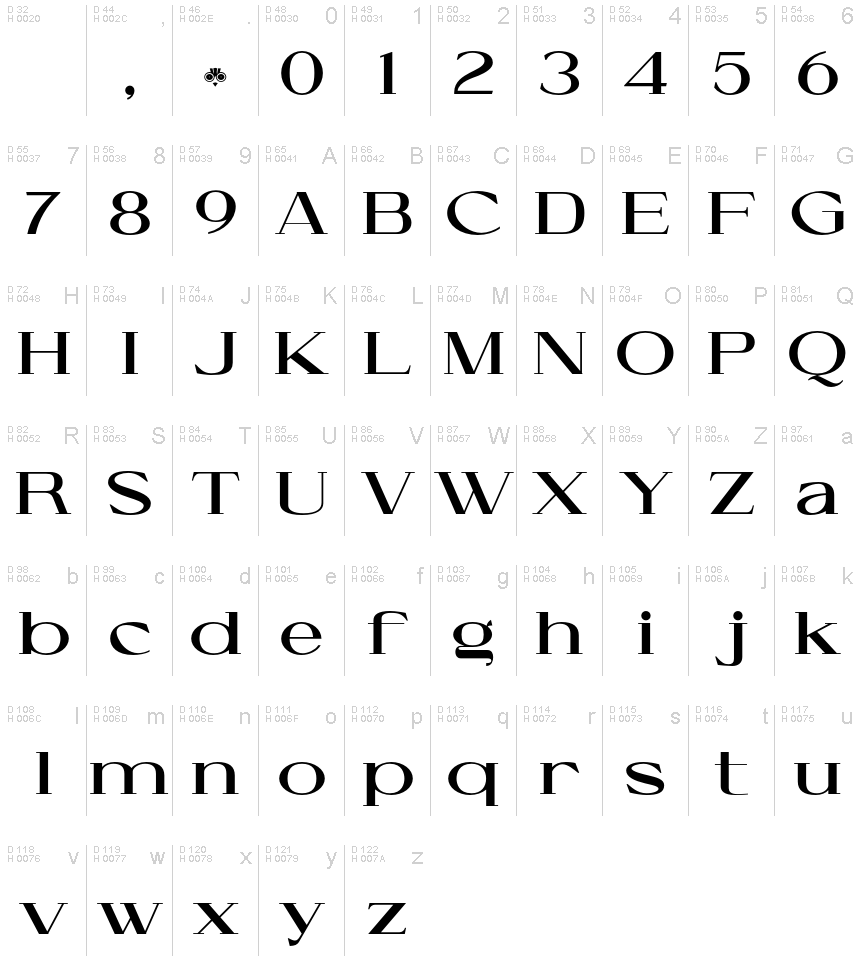
Cellofy Black Expanded font, part of the Cellofy family by Owlking Project, captures attention with its bold, expanded serif style. The font showcases a strong visual impact, making it perfect for headlines and branding where a commanding presence is essential. Its expanded width enhances readability and adds a touch of elegance, blending tradition with modern aesthetics.
Ideal for designers seeking to make a statement, the Cellofy Black Expanded font is suited for logos, posters, and editorial work where sophistication meets clarity. Available as a free download for personal use, this versatile typeface offers an impressive combination of style and functionality.
Embrace its unique flair to elevate your design projects effortlessly.